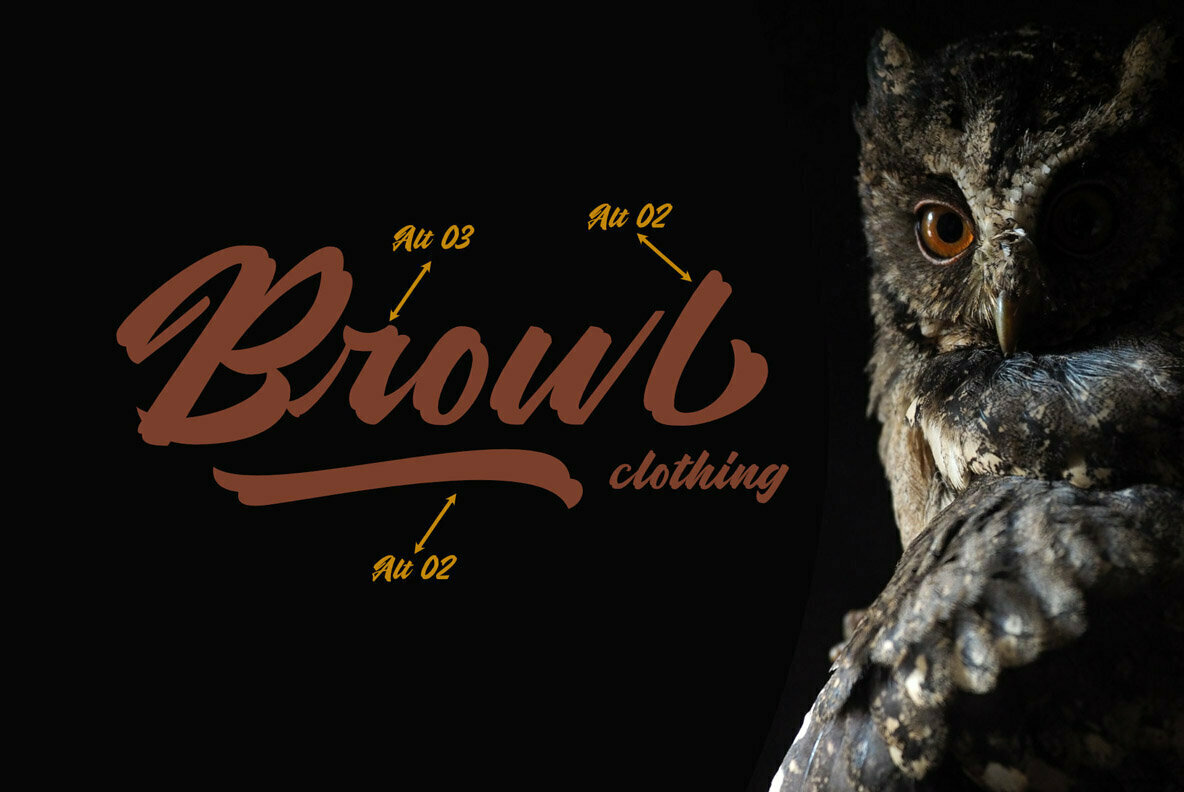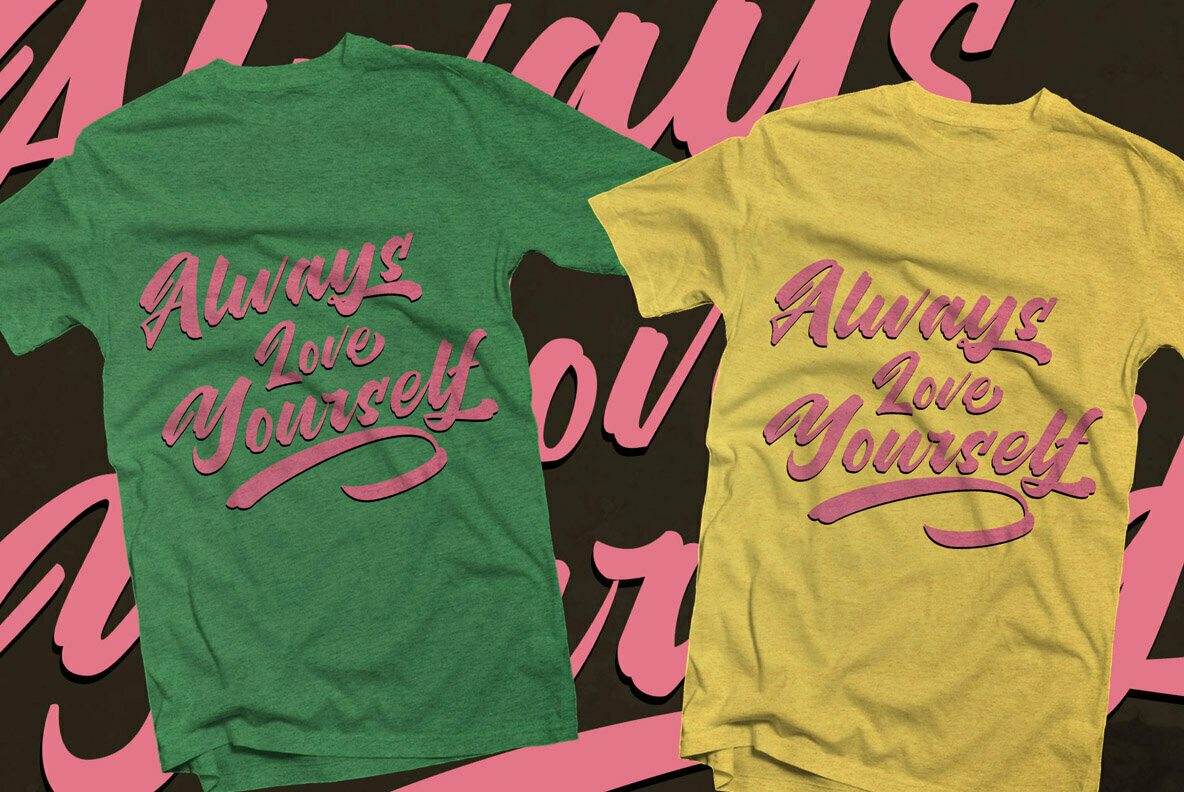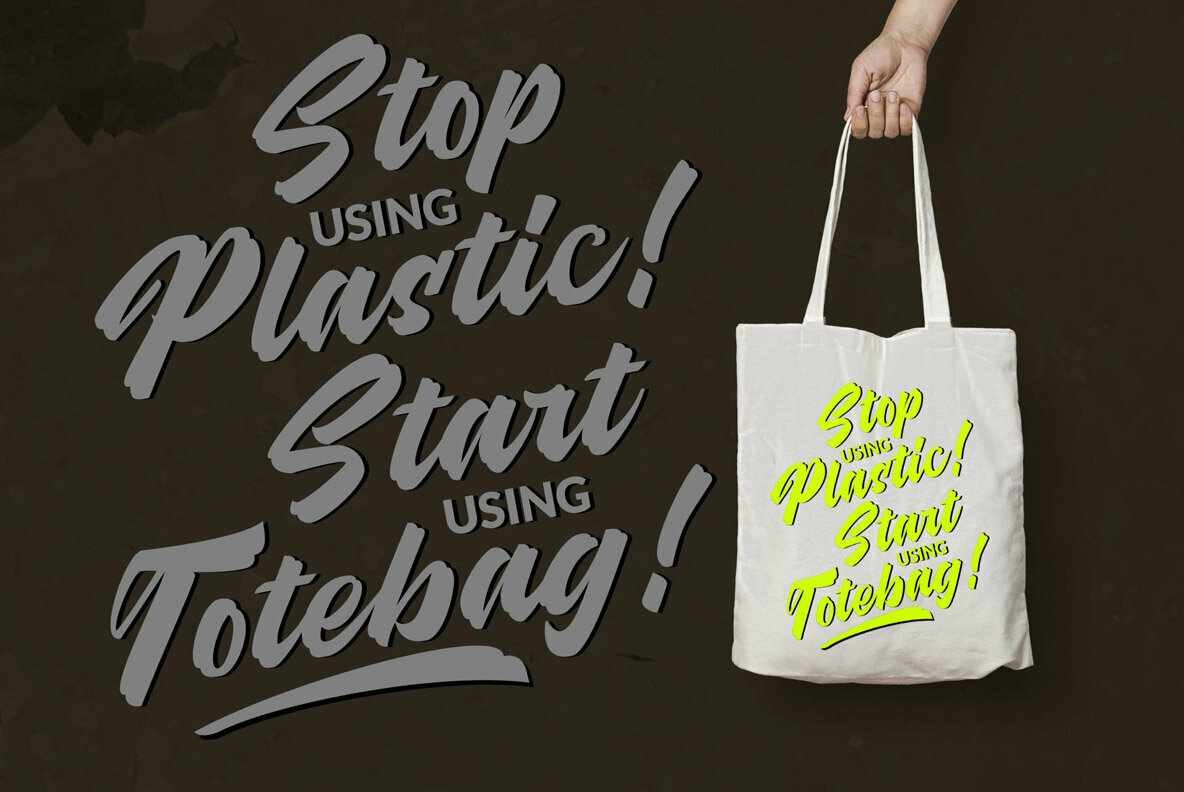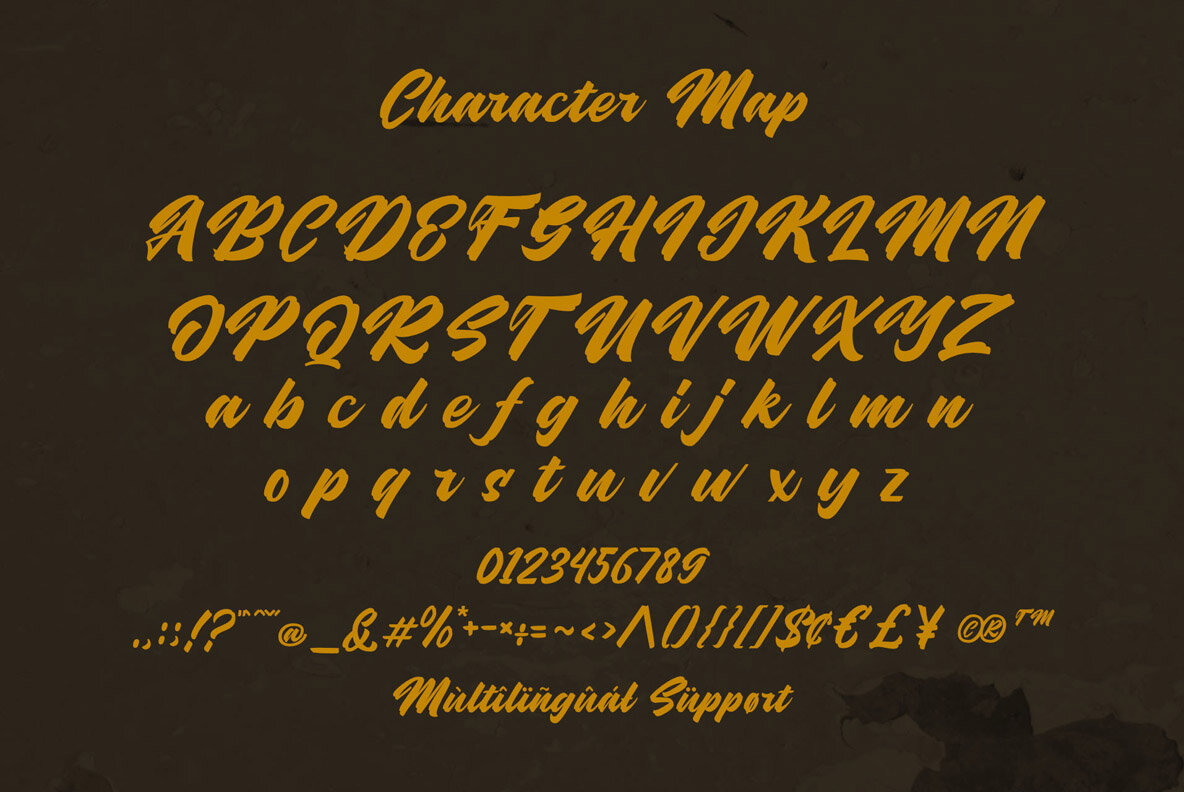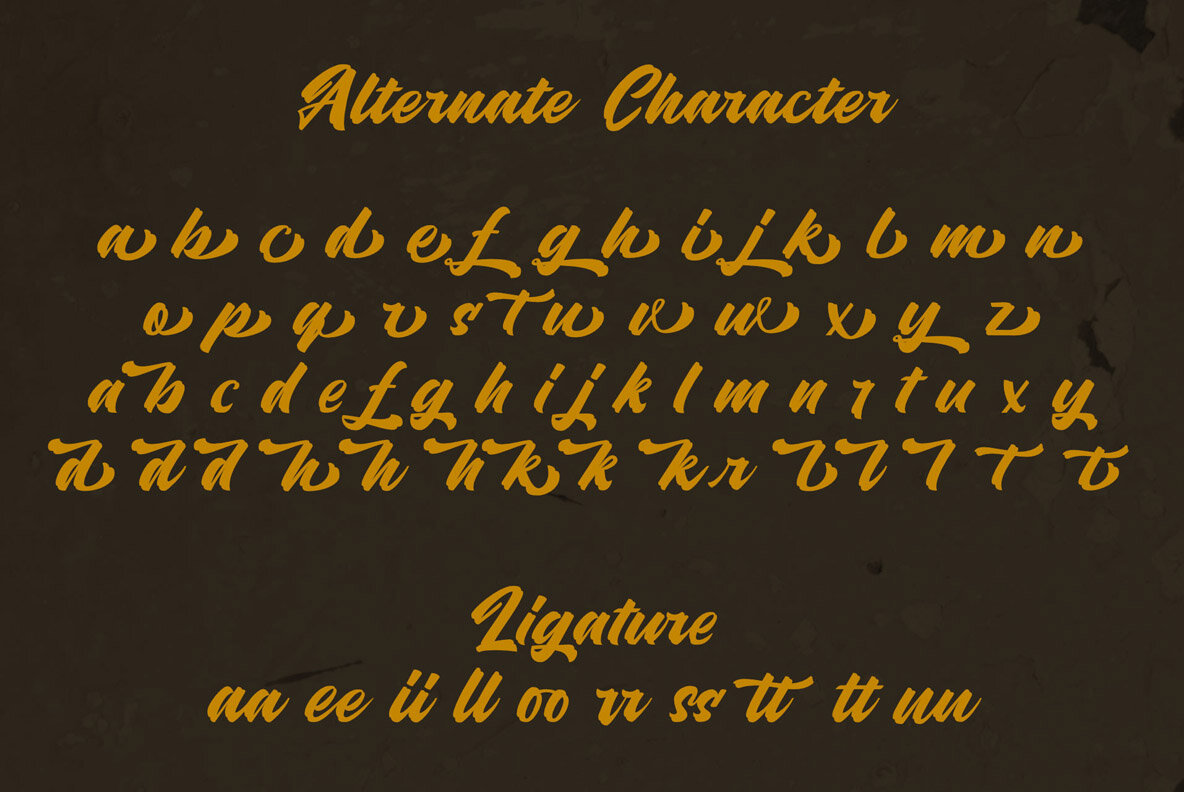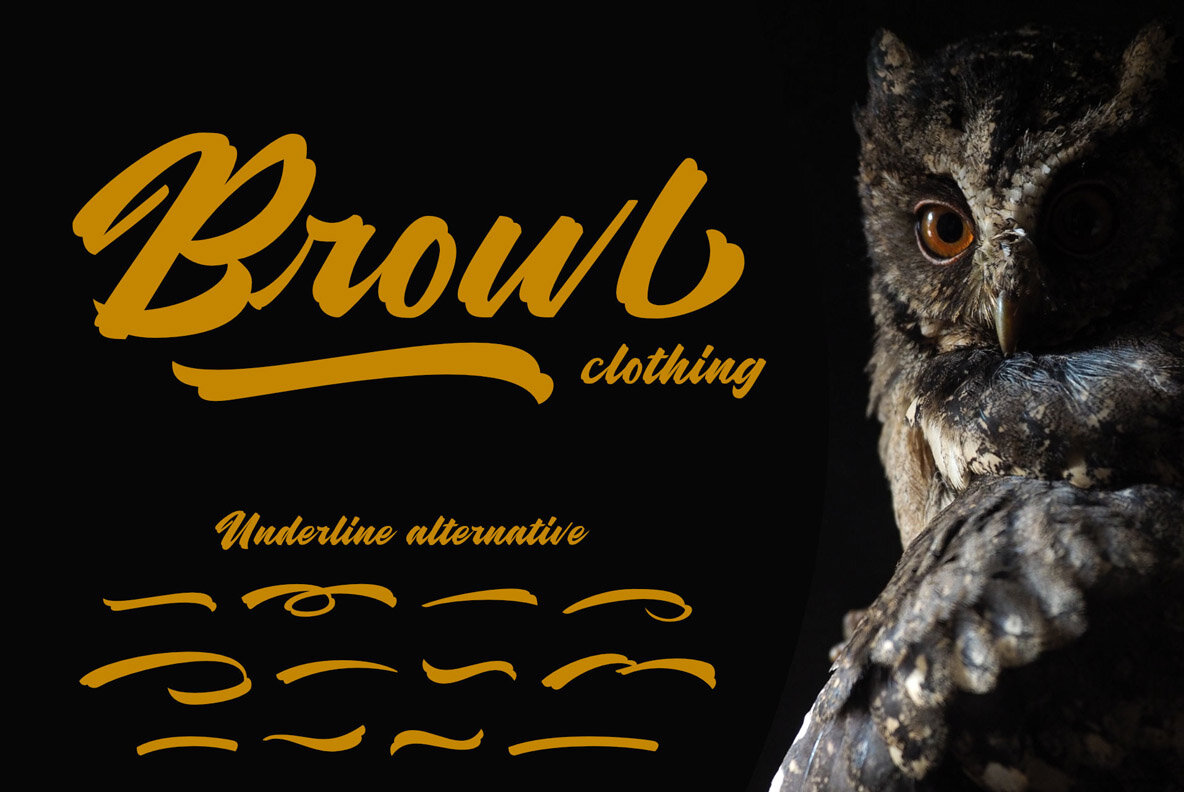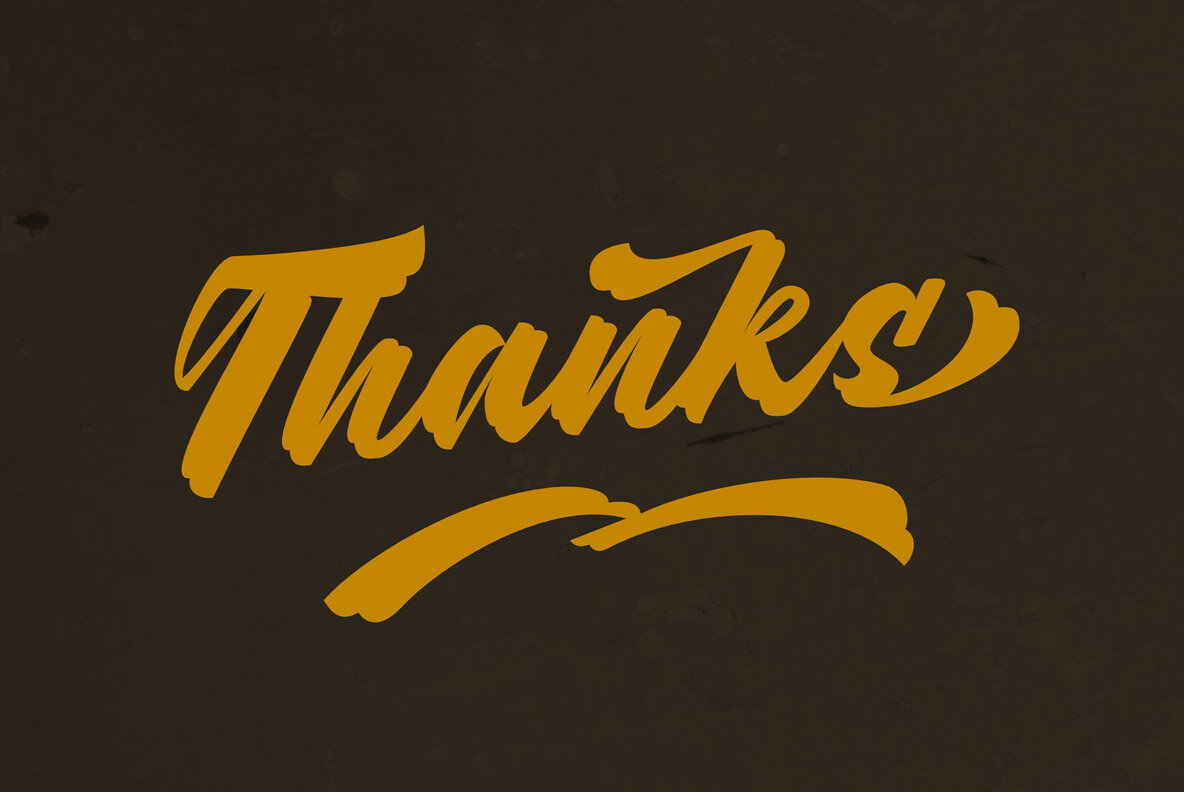
Hubolt Scrpt Font
Hubolt Script
Hubolt Script, crafted from Lyra Aqua brush sketches, brings an exceptional aesthetic to your projects. Its dynamic strokes add a vibrant flair, making it well-suited for various design contexts such as logos, branding, invitations, and more. Whether you're working on social media graphics, advertisements, or packaging, Hubolt offers a versatile solution that enhances visual appeal across platforms. This font's compatibility with major design software ensures it integrates seamlessly into your creative process.Hubolt Script: An Expressive Brush Font